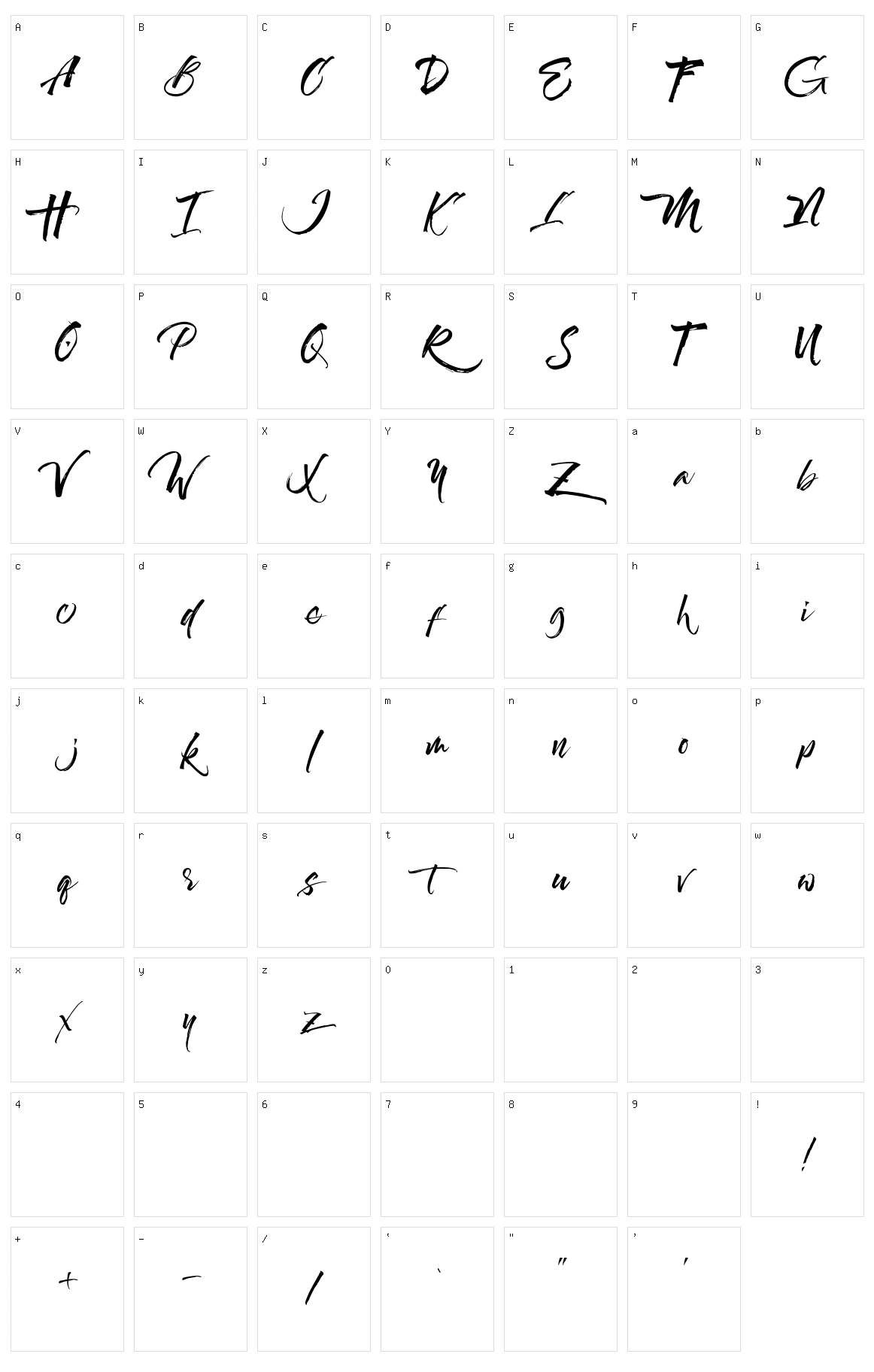
The free font Maximaz is carefully designed by Thirtypath, showcasing a thoughtful balance of creativity and usability and falls under the Script font style. When you download the ZIP file, it contains only 89.96 KB of font files, making it lightweight and quick to download. Please review the license details below to understand permitted usage and distribution rights. If license information is not available, we recommend using this font for personal projects only or contacting the author directly for commercial usage permissions.